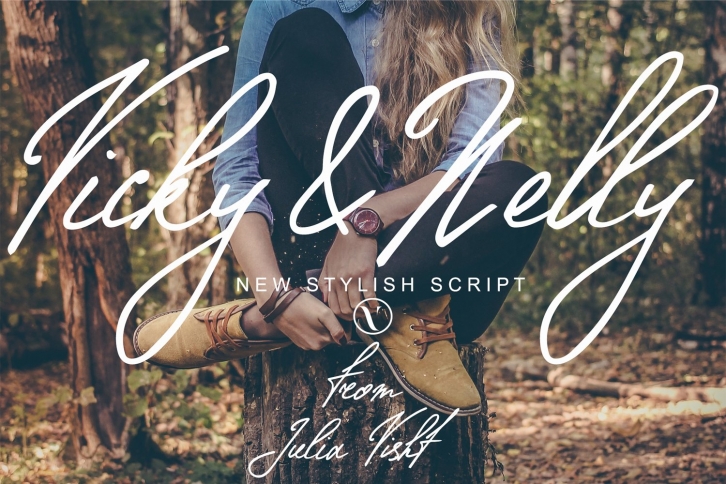
VICKY & NELLY Script is a gorgeous font that was realeased on January 20, 2022. The font can be used in many style contexts and design environments. Perfect for invitations, magazines, websites, logos, and more! It was designed by Julia Visht and the file size is 14.25 MB. Thanks for checking out this font!